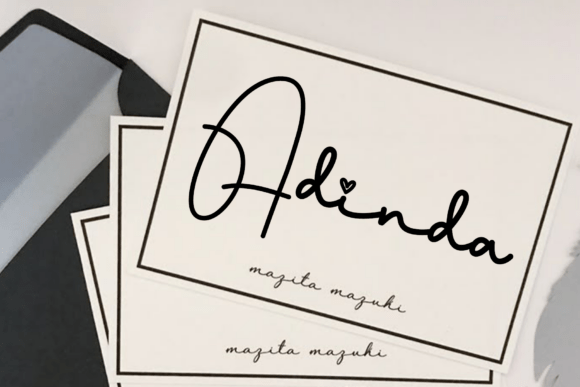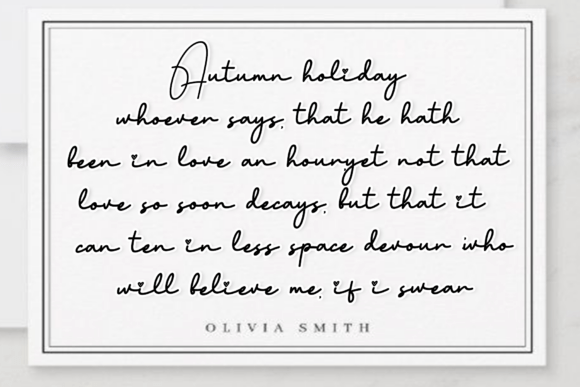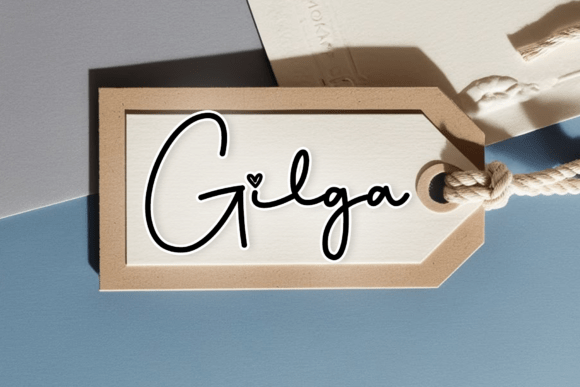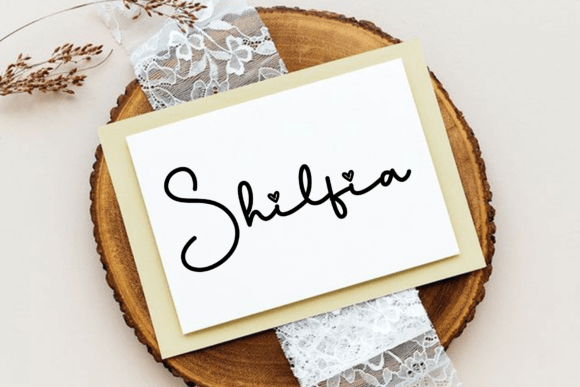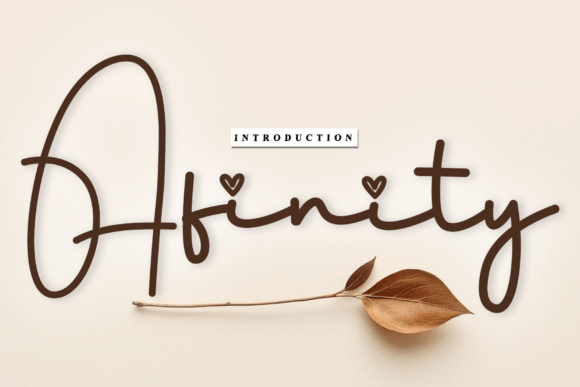
Afinity Font: Elevate Your Designs with a Timeless Handwritten Style
Are you on the lookout for a font that can add a touch of elegance and sophistication to your designs? Look no further than Afinity Font, a lovely and timeless handwritten font that is perfect for creating eye-catching logos, branding, and quotes. With its unique and beautiful touch, Afinity Font is sure to make your design come alive!
What Makes Afinity Font Special?
Afinity Font is a one-of-a-kind handwritten font that boasts a distinctive and charming style. Every letter has been carefully crafted to have a unique and beautiful touch, which sets it apart from other fonts. The font’s timeless quality ensures that it will never go out of style, making it a great investment for designers and crafters who want to create stunning designs that will stand the test of time.
Afinity Font is an excellent choice for creating eye-catching logos, branding, and quotes. Its elegant and sophisticated style makes it perfect for businesses and individuals who want to create a professional and lasting impression. Whether you’re looking to create a logo for your company, a slogan for your marketing campaign, or a quote for your social media posts, Afinity Font is the perfect choice.
Why Choose Afinity Font?
So, why should you choose Afinity Font for your design needs? Here are just a few reasons:
- Unique and Beautiful Touch: Every letter in Afinity Font has a unique and beautiful touch that will make your design stand out.
- Timeless Quality: Afinity Font has a timeless quality that ensures it will never go out of style.
- Elegant and Sophisticated: Afinity Font has an elegant and sophisticated style that is perfect for creating professional and lasting designs.
- Versatile: Afinity Font is versatile and can be used for a wide range of design projects, from logos and branding to quotes and social media posts.
Tips for Getting the Most Out of Afinity Font
Here are a few tips for getting the most out of Afinity Font:
- Experiment with Different Sizes and Colors: Afinity Font looks great in a variety of sizes and colors, so don’t be afraid to experiment and find the perfect combination for your design.
- Pair it with Other Fonts: Afinity Font pairs well with other fonts, so try pairing it with a bold font for a striking contrast.
- Use it for Headlines and Titles: Afinity Font is perfect for headlines and titles, so use it to add a touch of elegance and sophistication to your design.
In conclusion, Afinity Font is a lovely and timeless handwritten font that is perfect for creating eye-catching logos, branding, and quotes. With its unique and beautiful touch, Afinity Font is sure to make your design come alive! Whether you’re a designer or crafter, Afinity Font is a great choice for anyone looking to add a touch of elegance and sophistication to their designs.